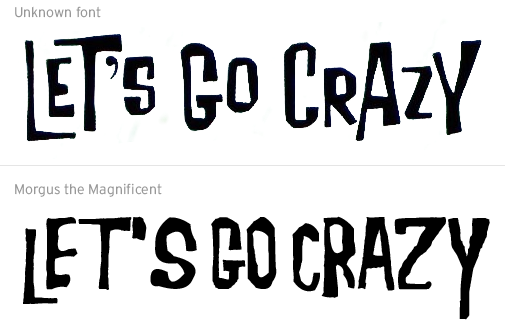
Seeking the name of a lost 50s/60s font from Prince's Purple Rain
I'm searching for the name of a font that was used in 1984 on Prince's Purple Rain album. I think the font likely dates back to the 1950s or 1960s.
The designer of the album no longer remembers the name of the font and is unable to look it up. More recently, a font called "Morgus the Magnificent" (available at https://www.dafont.com/morgus-the-magnific.font) was created based on this original font. I've been in contact with the designer, who said he took if from an old advertisement but never had the complete font, so also doesn't know the original name.
I've spent considerable time researching and consulting various type specimen books, but I haven't found an exact match. I am specifically looking for the name — I don't need a working version. Any insights or leads would be greatly appreciated. Thank you!